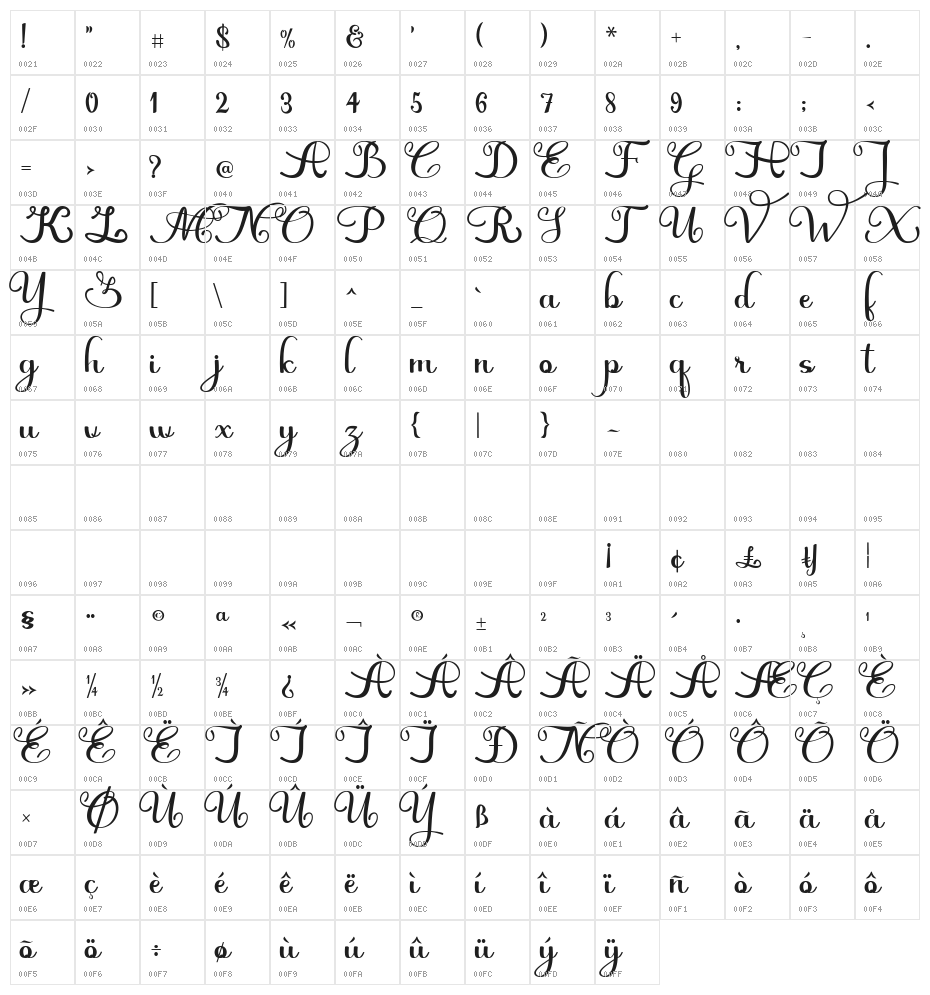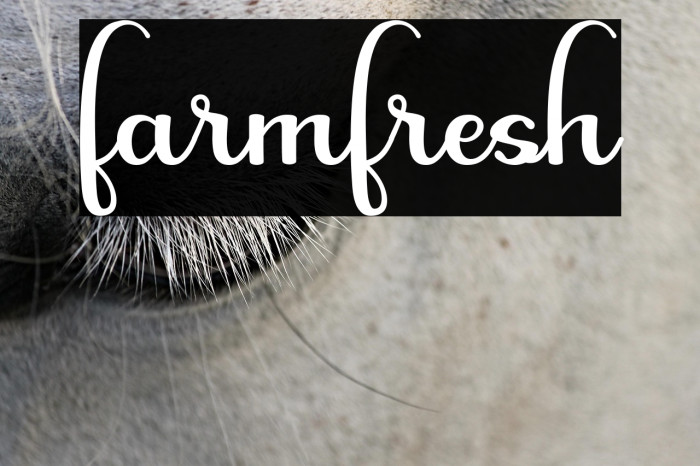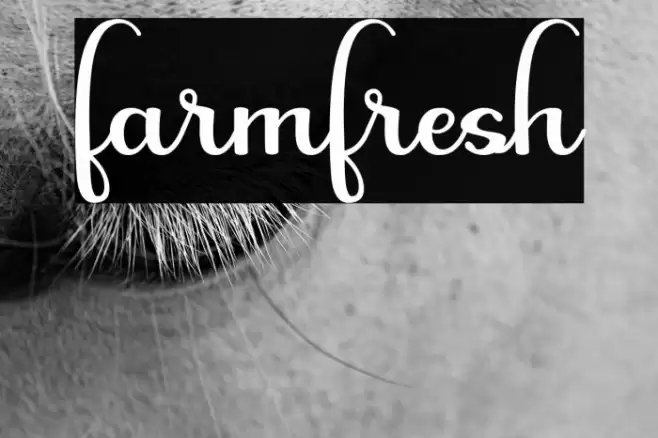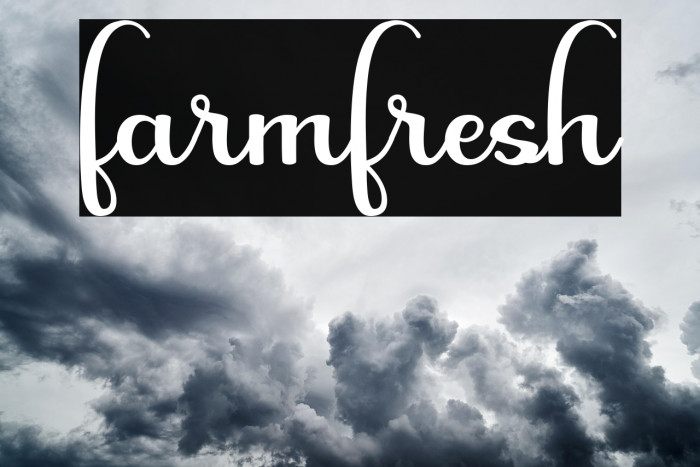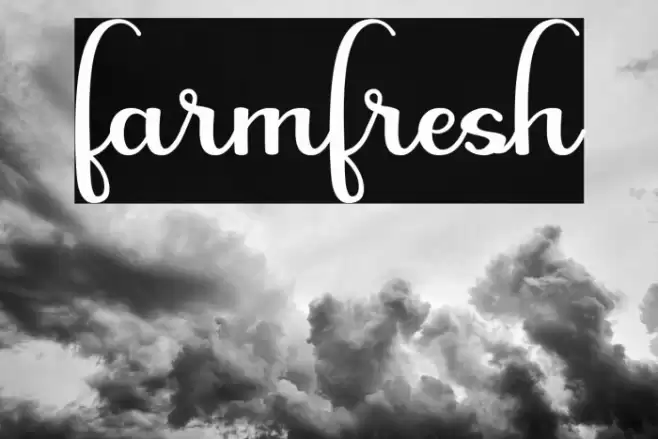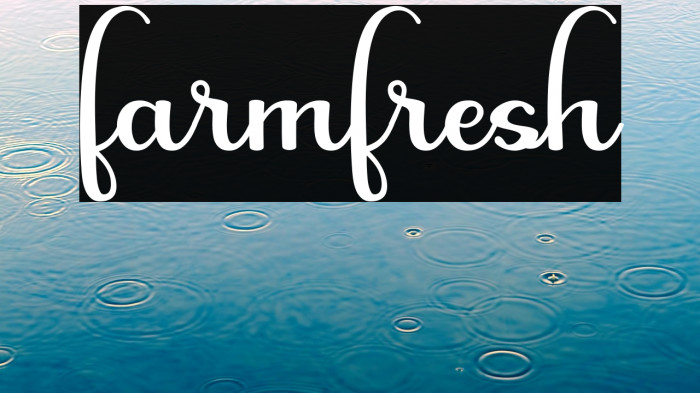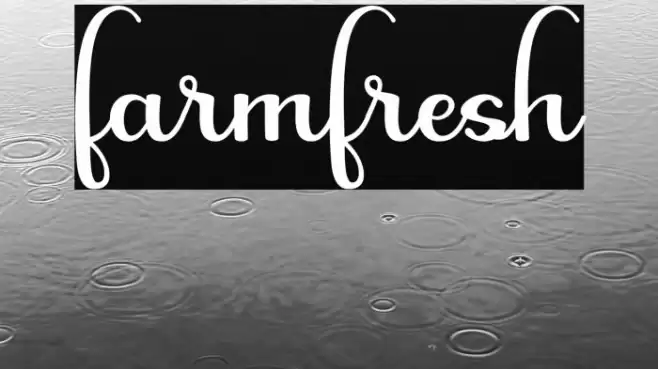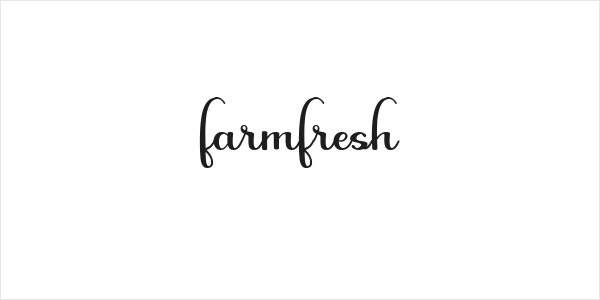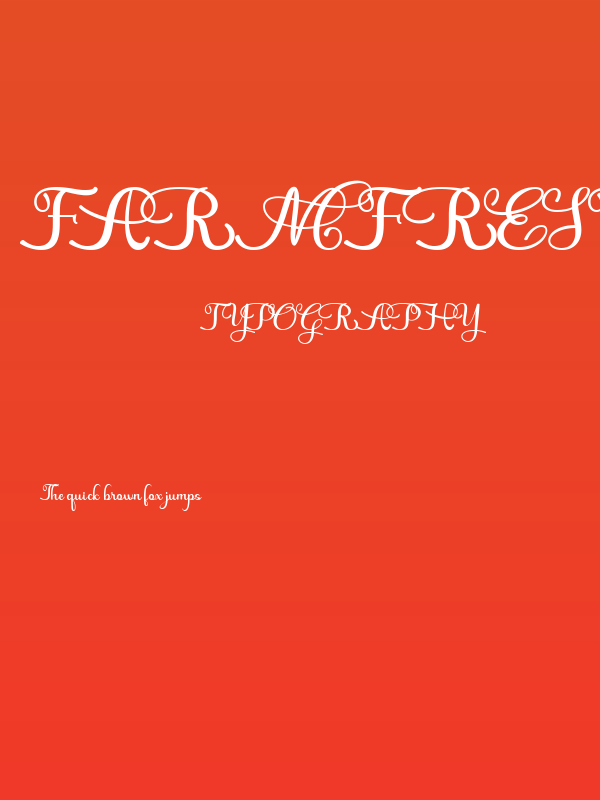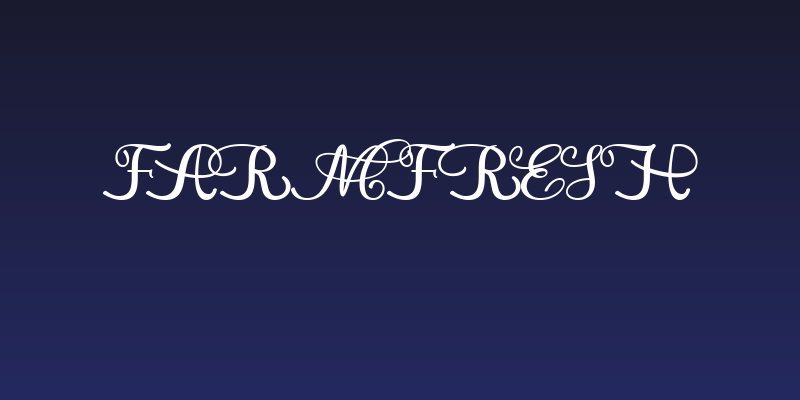
farmfresh Font
farmfresh Description
This font features an elegant and flowing script style that combines both uppercase and lowercase letters with a sense of fluidity and grace. The uppercase letters are ornate, with intricate loops and swirls that give a sense of sophistication and charm. The lowercase letters maintain a smooth, connected flow, enhancing readability while retaining a stylish appearance. The numerals are consistent with the script style, offering a cohesive look across all characters. Special characters are designed with the same attention to detail, ensuring they blend seamlessly with the rest of the font. This font is perfect for projects that require a touch of elegance and personality.